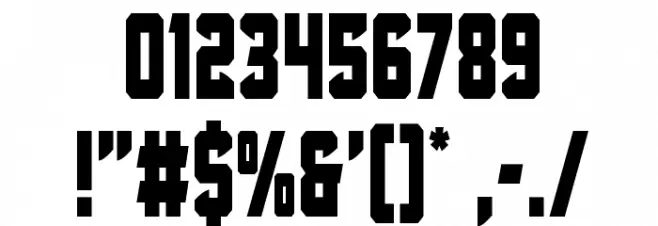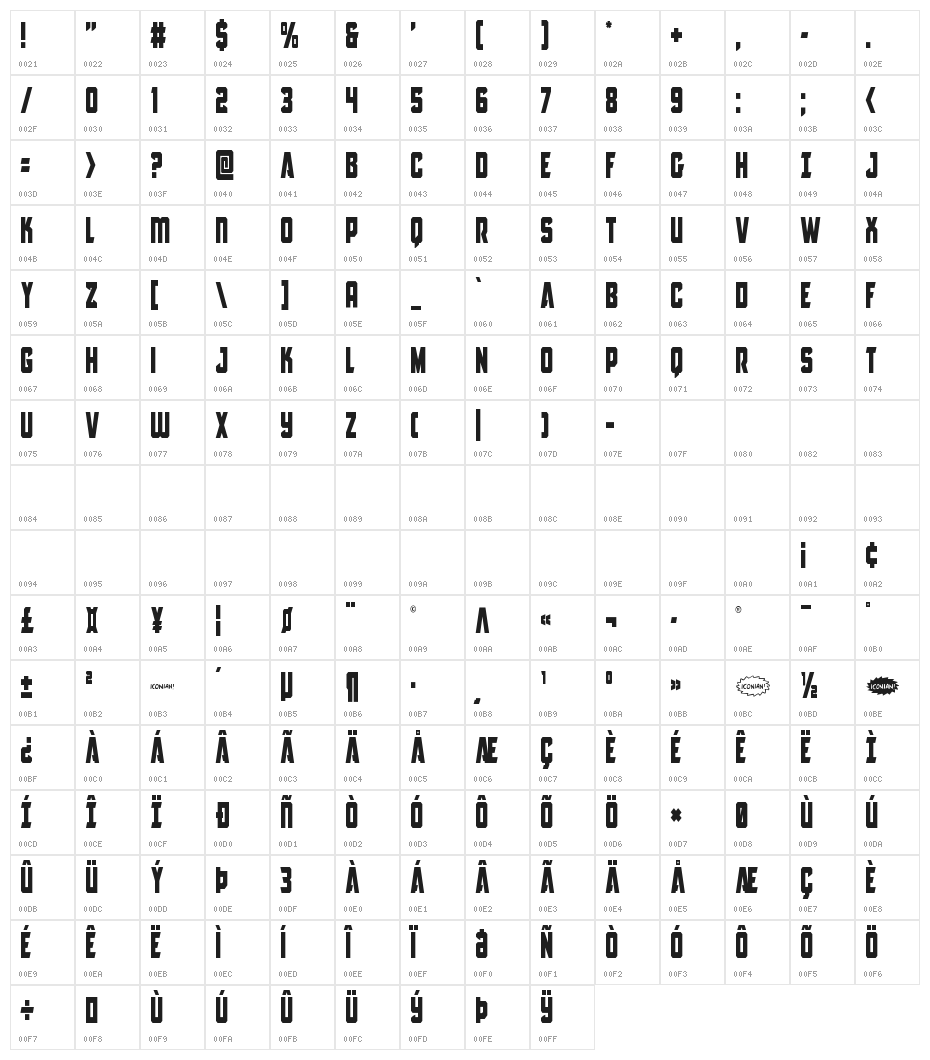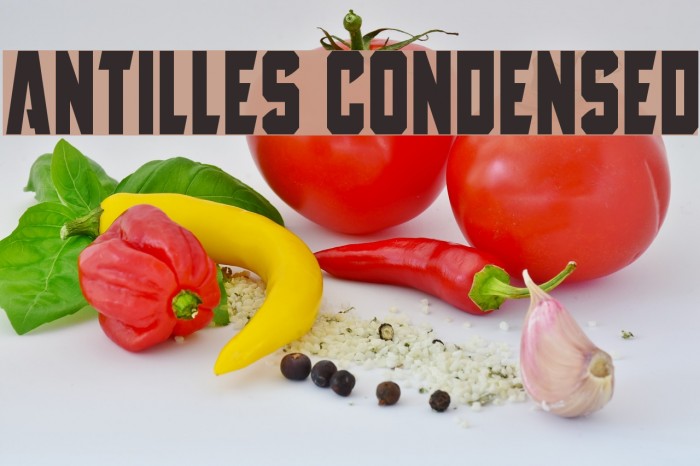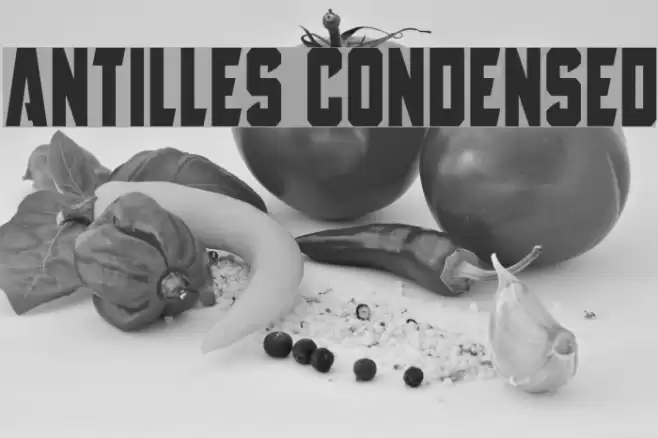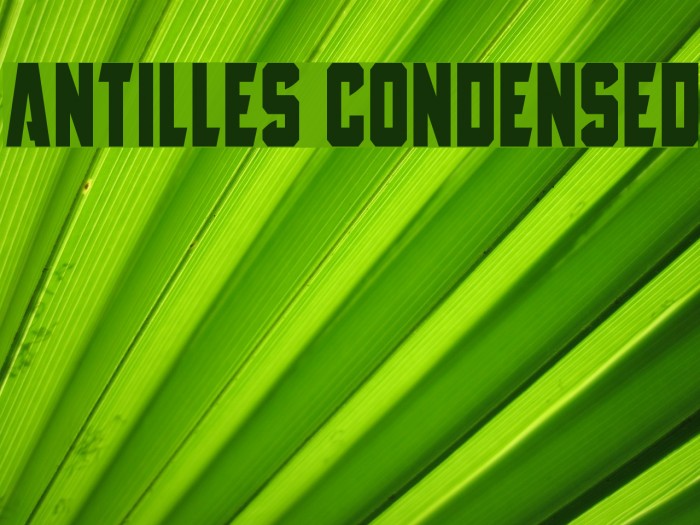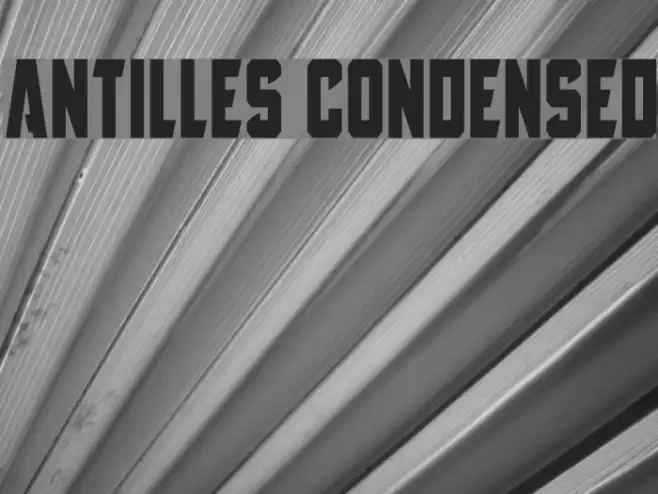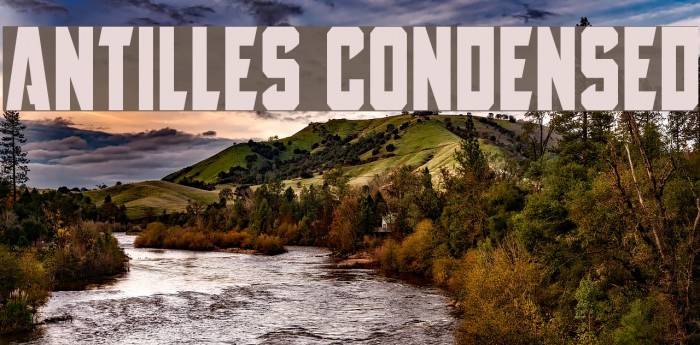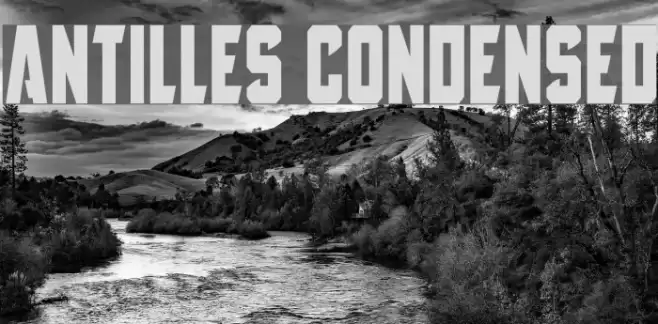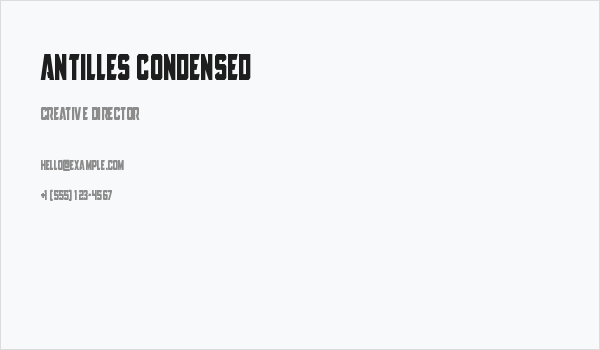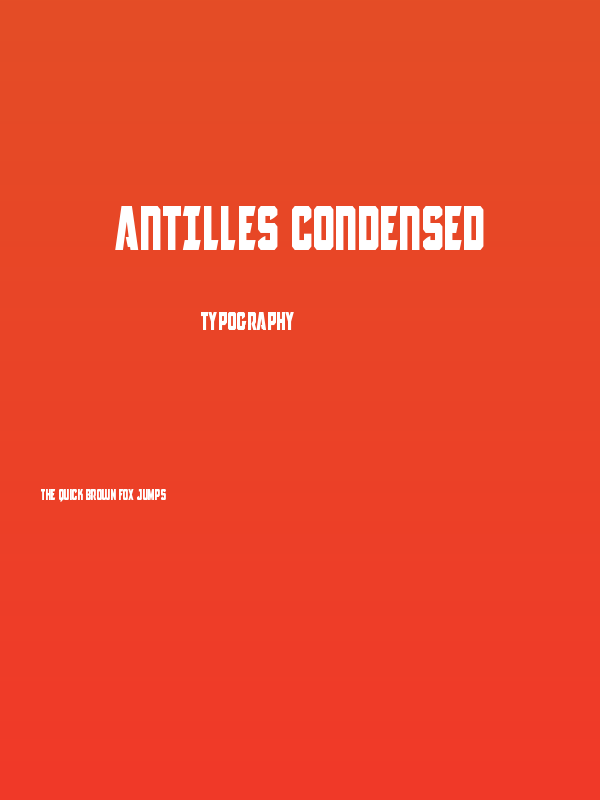
Antilles Condensed Font
Antilles Condensed Description
This font features a bold and impactful design with a condensed structure, making it ideal for attention-grabbing headlines and titles. The characters are uniformly thick, with sharp, angular edges that give a modern and assertive appearance. The uppercase and lowercase letters maintain a consistent height, contributing to a cohesive and streamlined look. The numerals and special characters are designed to match the boldness and style of the alphabet, ensuring uniformity across all text elements. The font's condensed width allows for efficient use of space, making it suitable for projects where space is limited but impact is necessary.